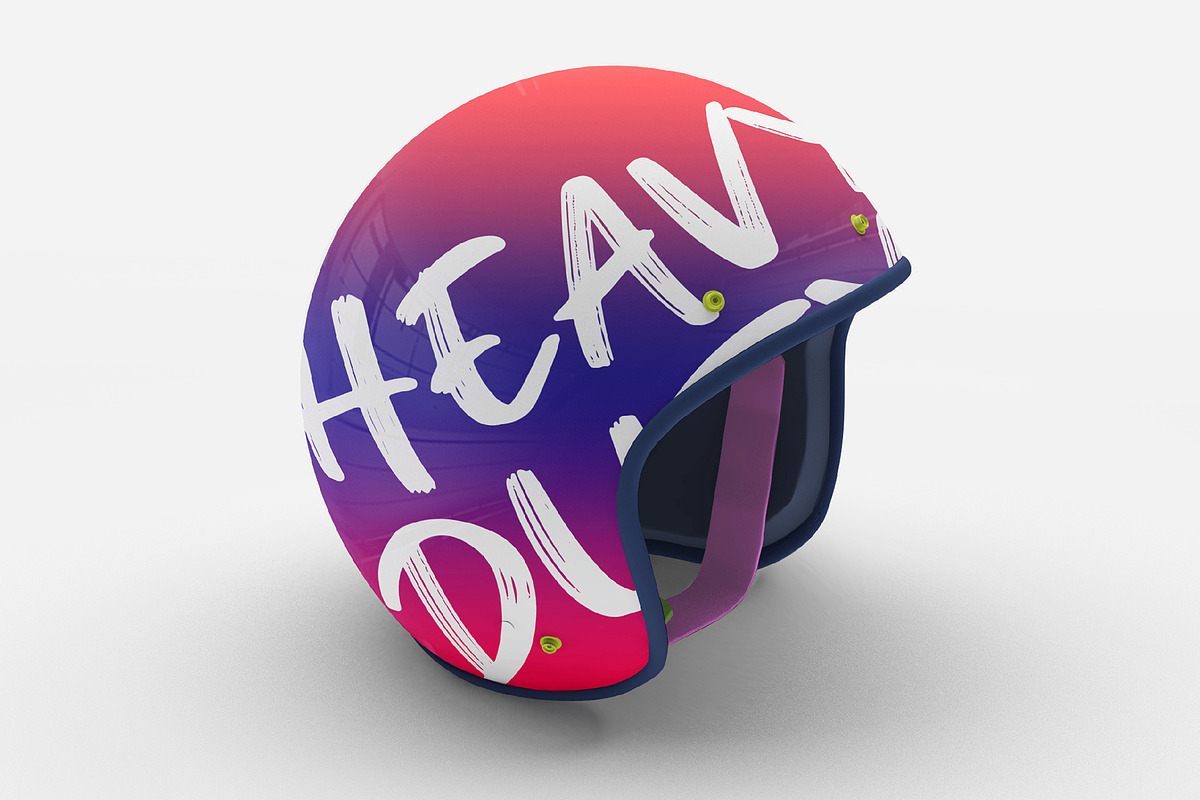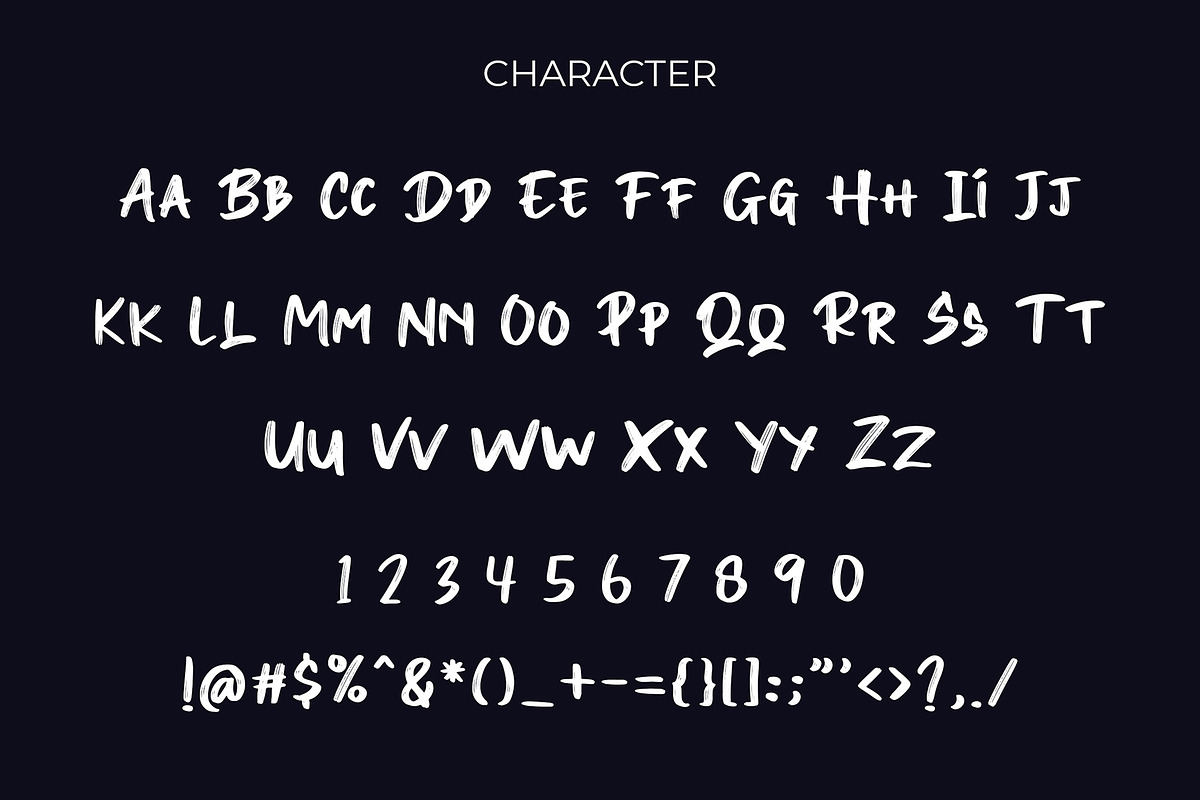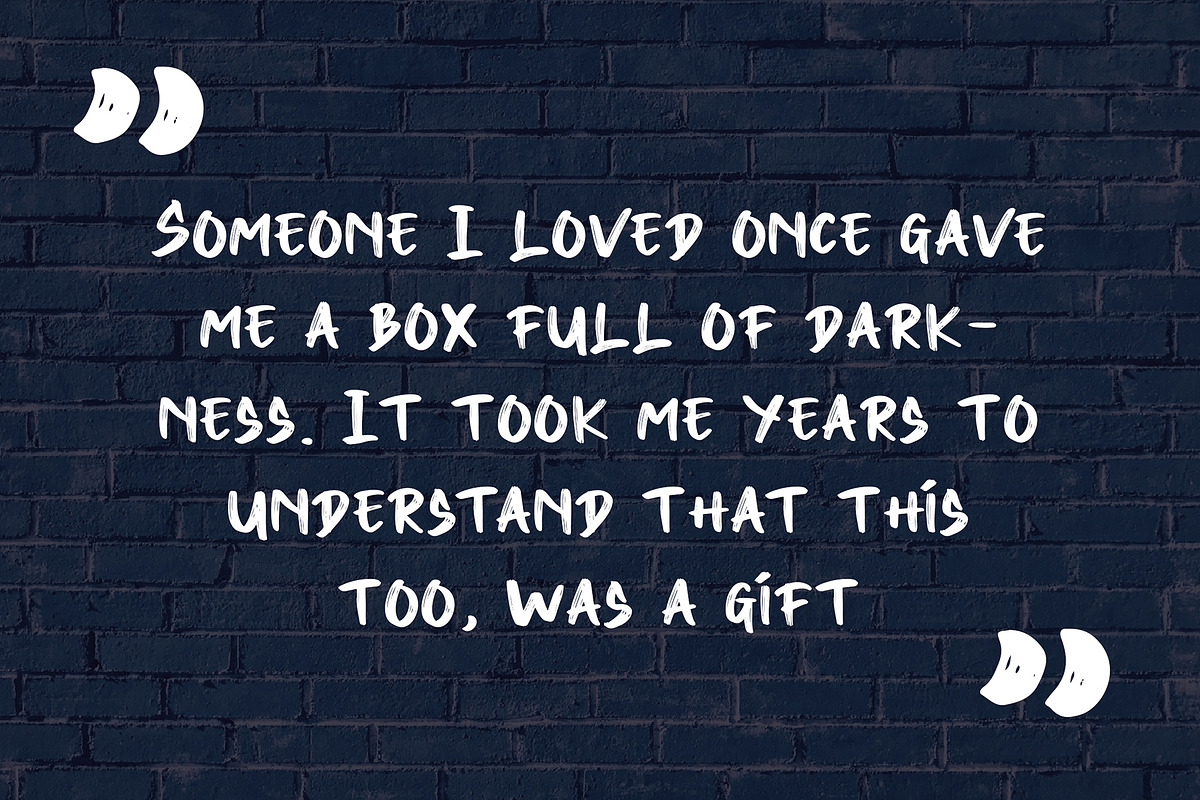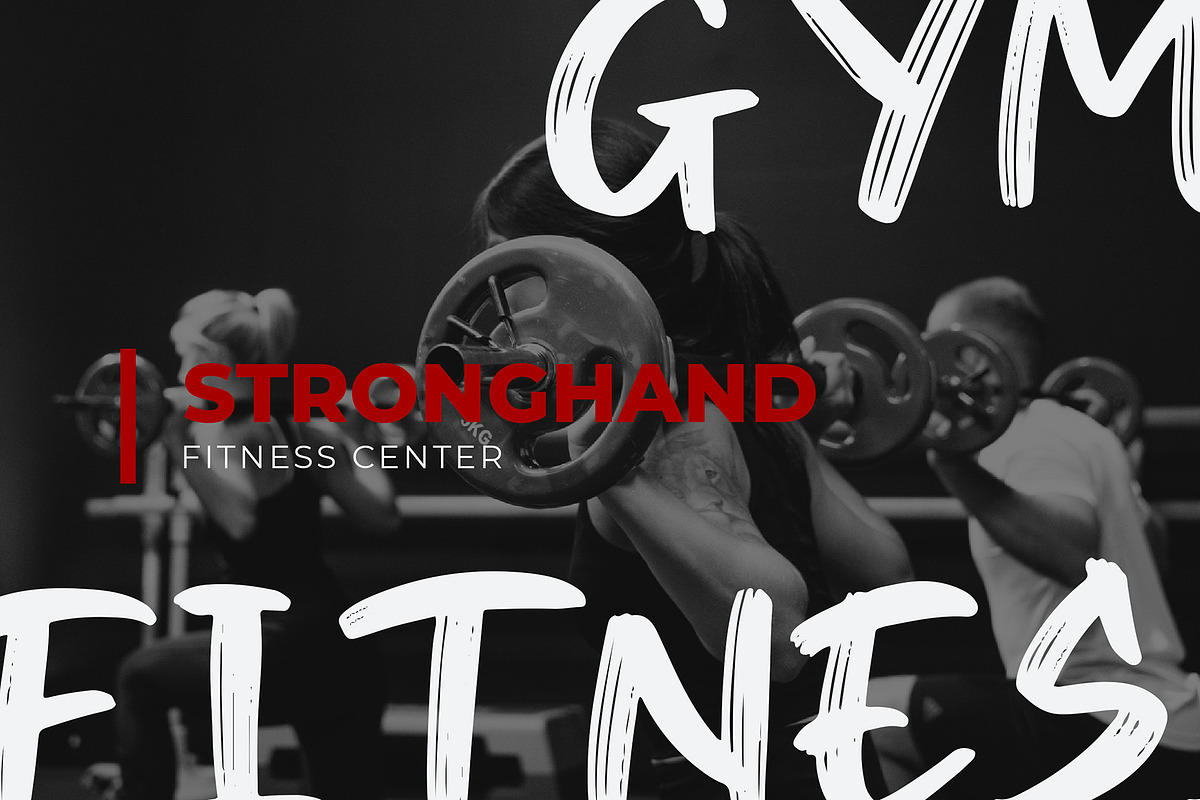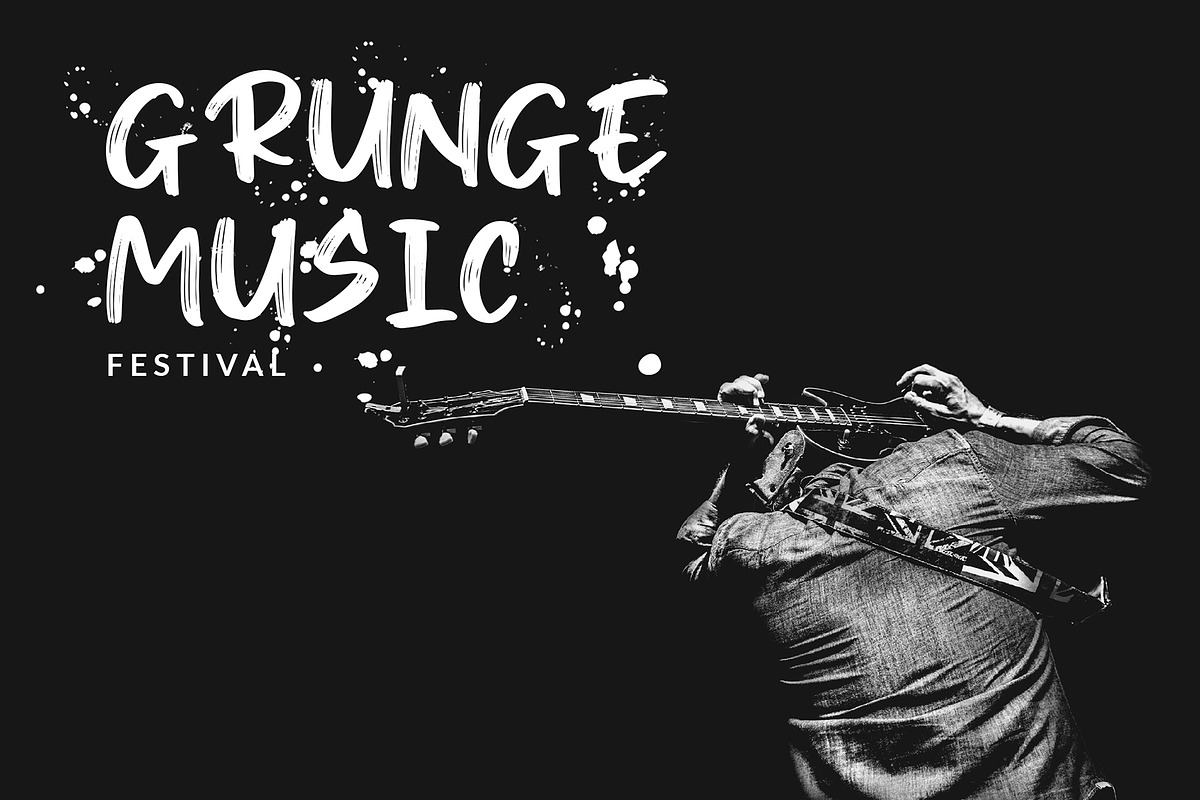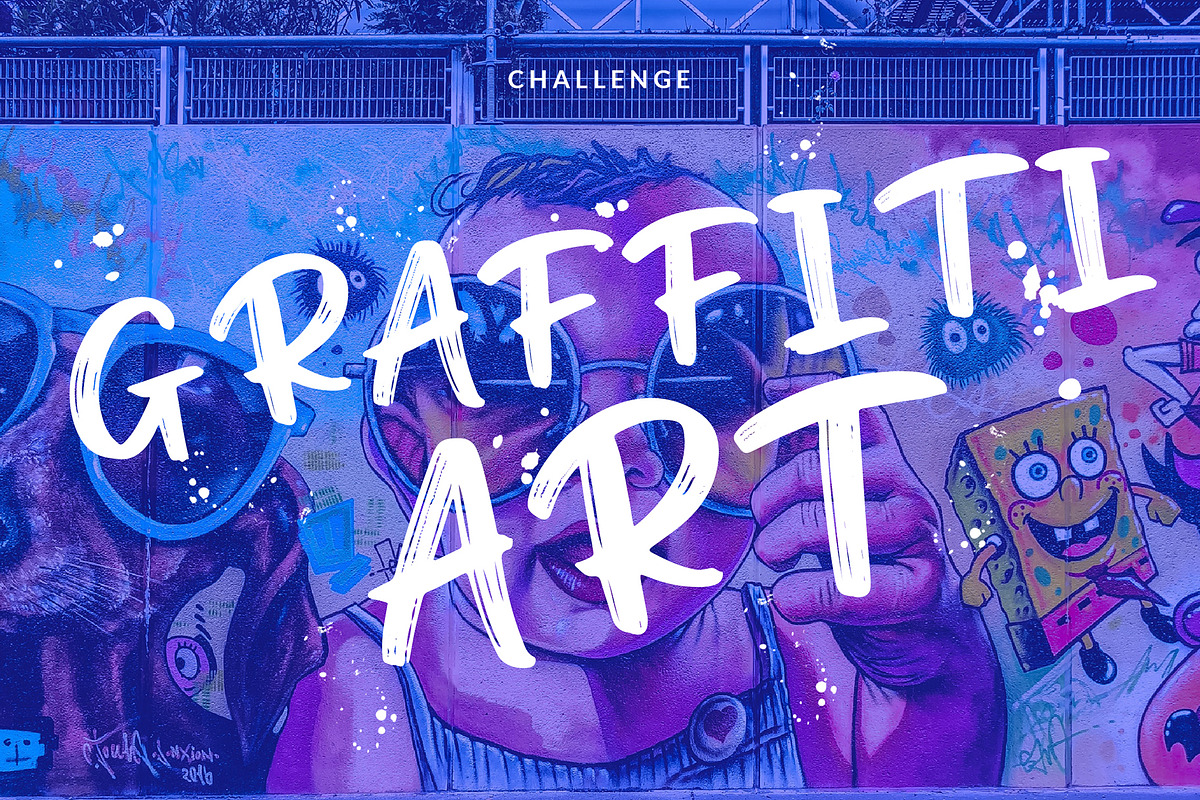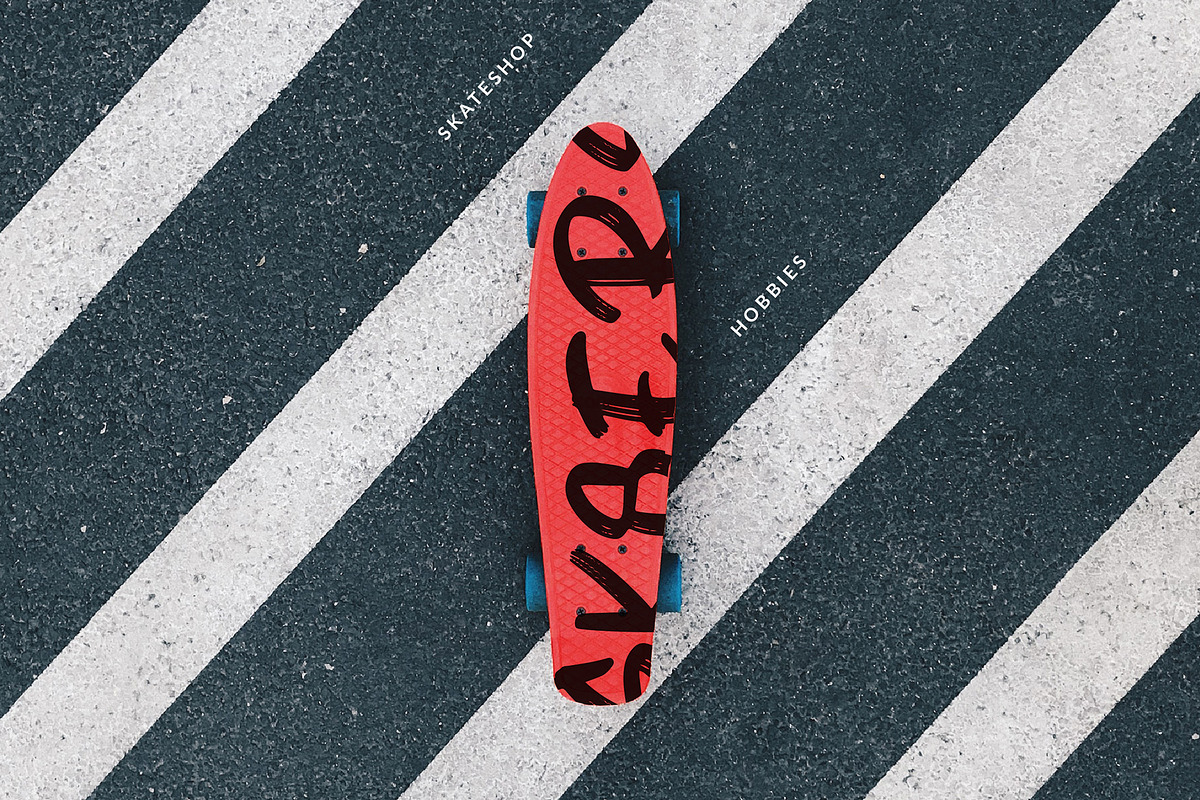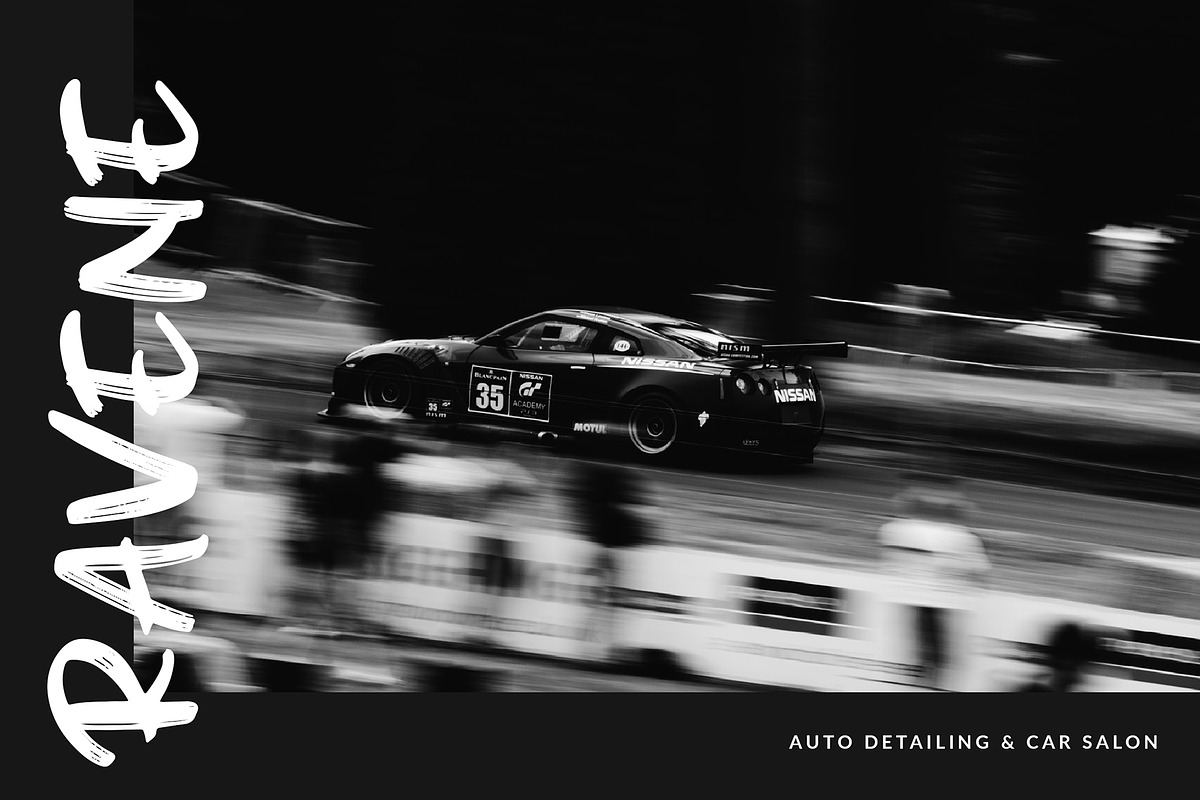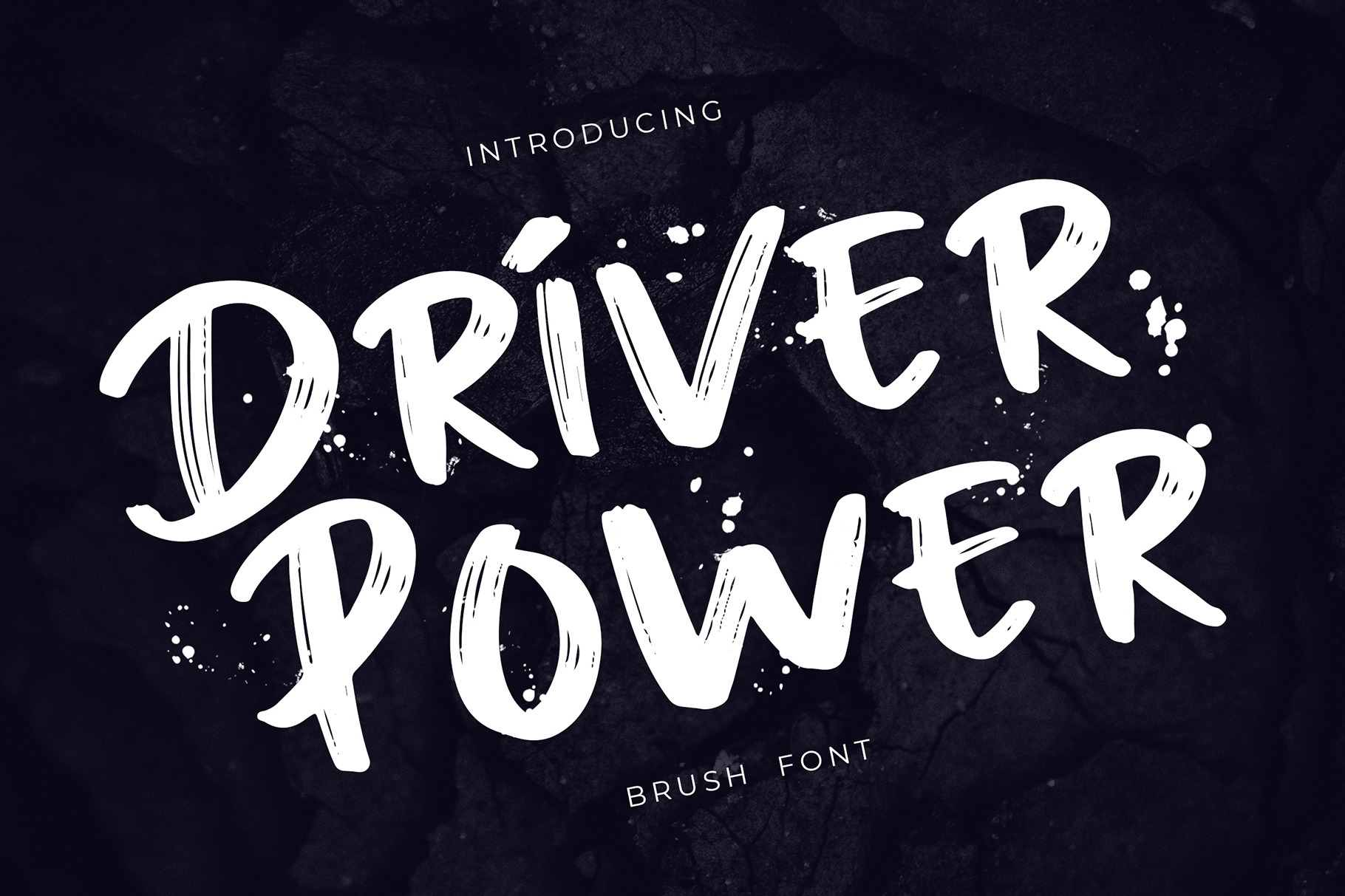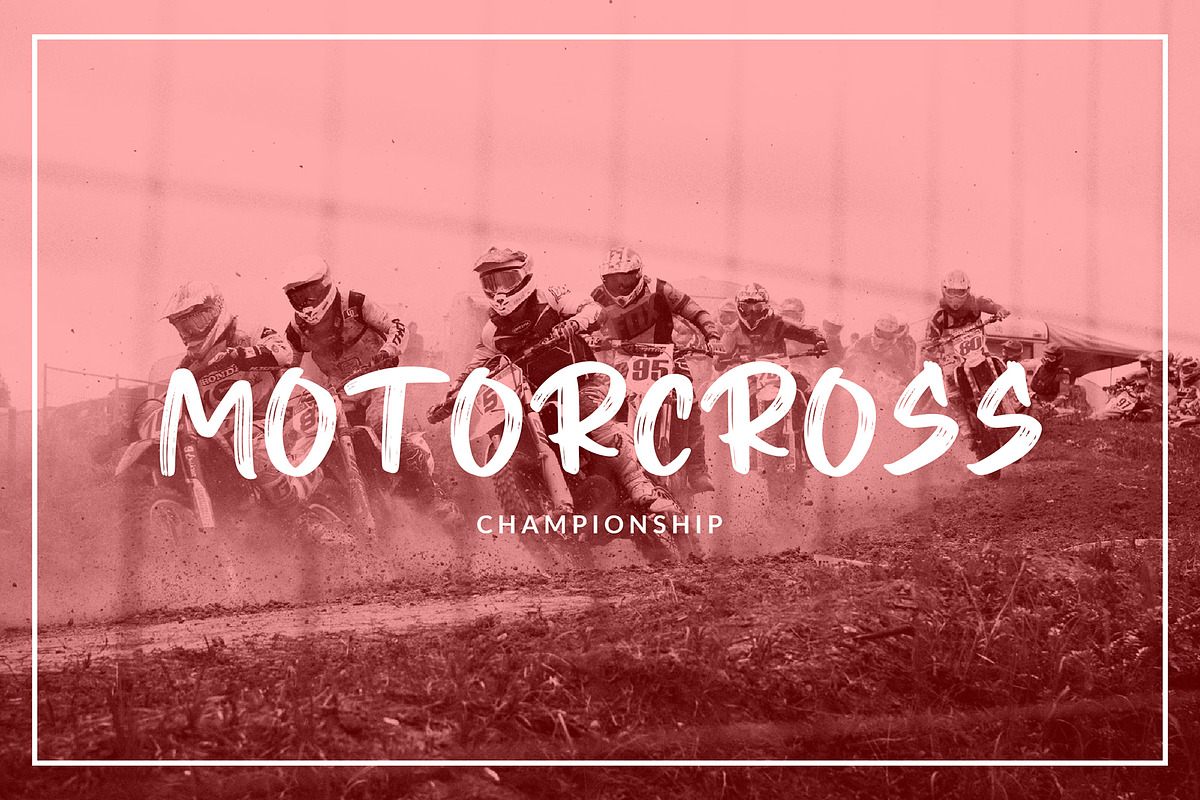
Driver Power Brush Grunge Font
Driver Power is a handwritten font with a grunge brush style. This font perfect for branding or events projects, logo, T-shirt designs, social media posts, advertisements, product packaging, product designs, label, watermark, invitation, stationery, and any projects.
This font is also fit for fitness and gym, extreme sport, car racing, BMX, skateboard, trial, trial, Xtreme travel, and many more!